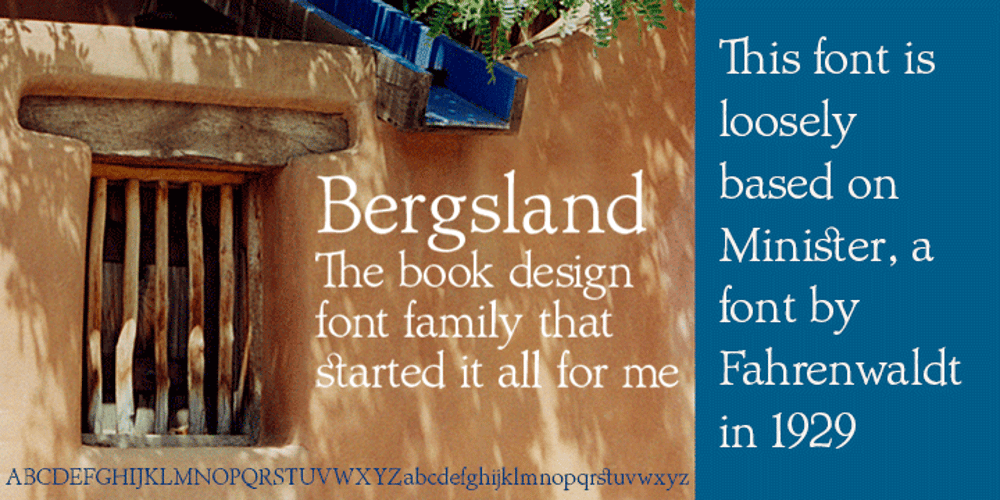
Bergsland Pro Font Family was designed by David Bergsland and published by Hackberry Font Foundry. Bergsland Pro contains 4 styles and family package options. This new OpenType pro family has four members so far with 588 characters and glyphs each. It is a redrawing of Diaconia Old Style, which has been worked hard and found to be very readable, elegant, and extremely useful for books, newsletters, or anything you need. It is elegant enough to use the regular weight as huge display type over 200 point.